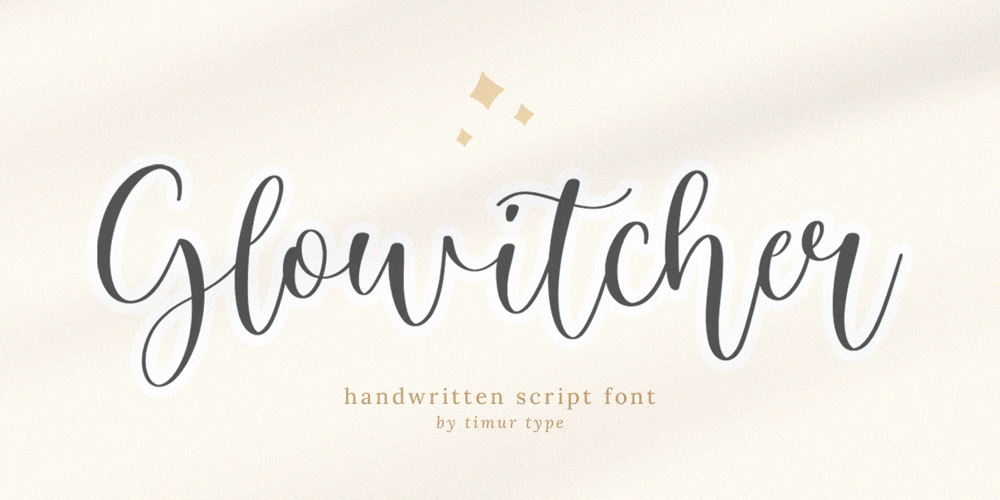
Glowitcher Font Family was designed by Wara Sigit Tri Pamungkas and published by Timurtype. Glowitcher contains 1 styles and family package options. Glowitcher A Handwritten Script FontGlowitcher is perfect for product packaging, branding project, megazine, social media, wedding, or just used to express words above the background.Glowitcher also multilingual support.Embillish your designs with our original fonts, Enjoy the font ๐